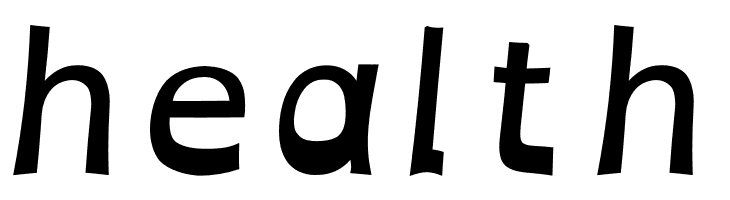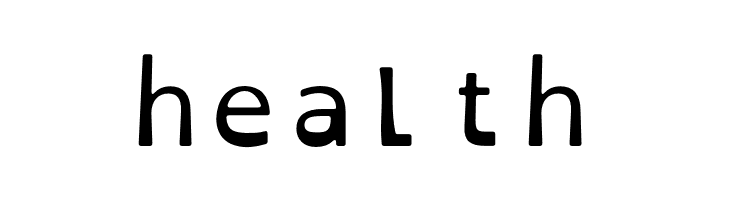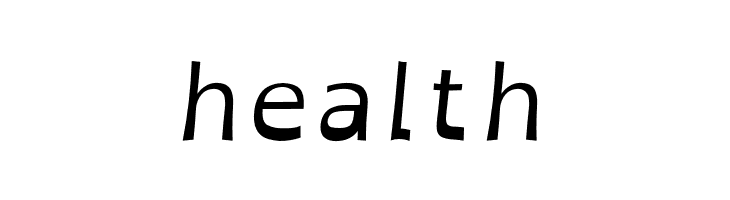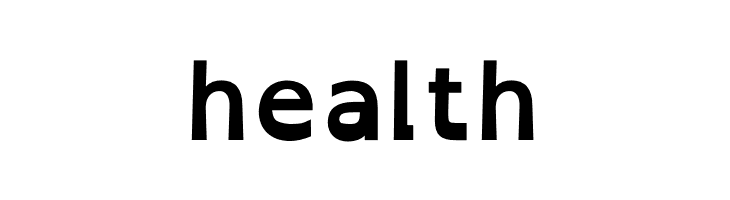
A bold, accessible font designed to improve readability for dyslexic readers.
A bold, italic font designed for readability and accessibility, ideal for dyslexic readers.
A dyslexia-friendly italic font with unique slants and varying thickness for enhanced readability.
A dyslexia-friendly font with distinct, weighted letterforms for improved readability.
A bold, accessible font designed to enhance readability with unique, distinguishable letterforms.
A bold, italic font designed for improved readability, especially for dyslexic readers.
An accessible, italic font with distinct, weighted letterforms for enhanced readability.
A monospaced font designed for readability, featuring distinct, weighted letterforms.
Bold, modern font with uniform stroke width and geometric shapes.